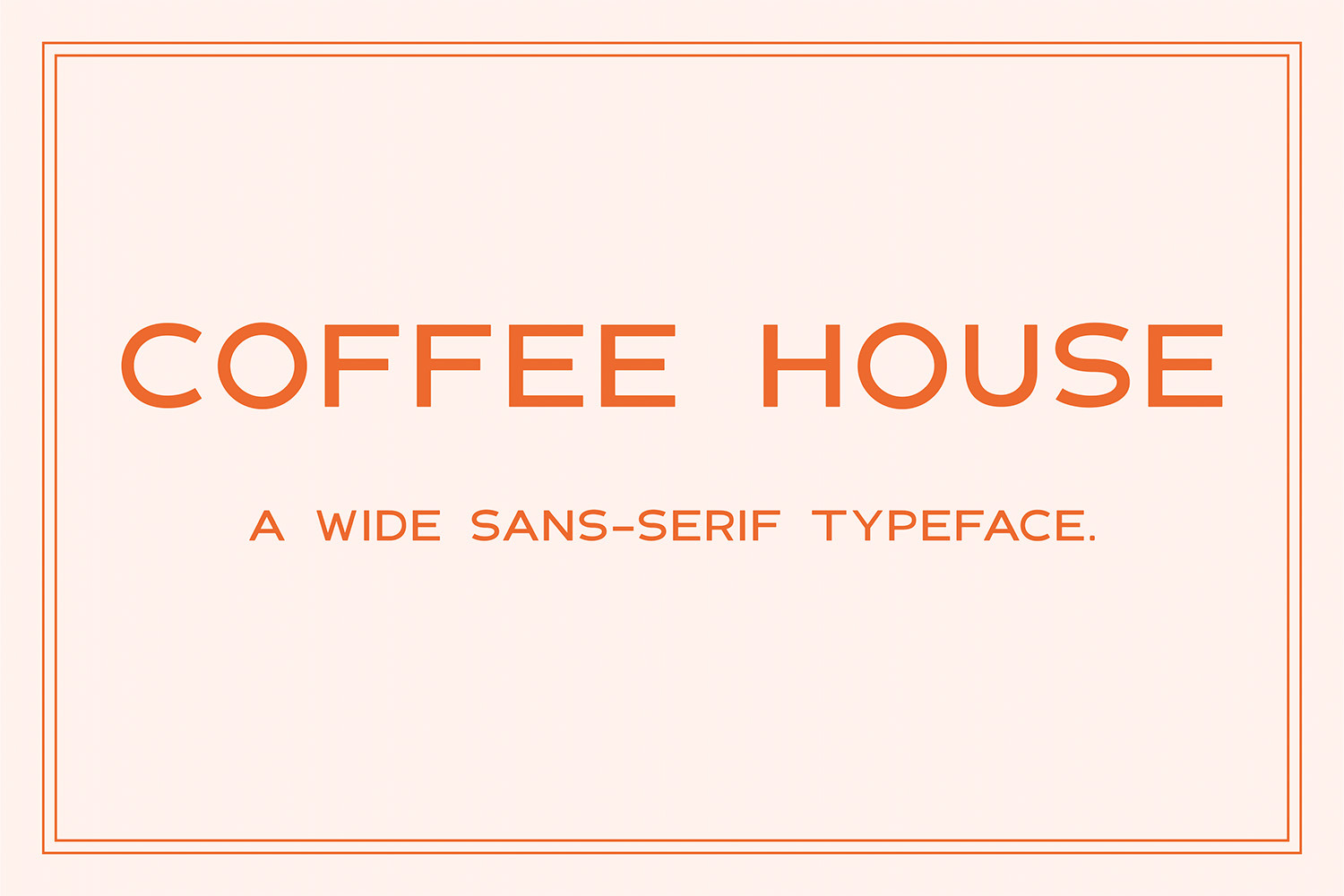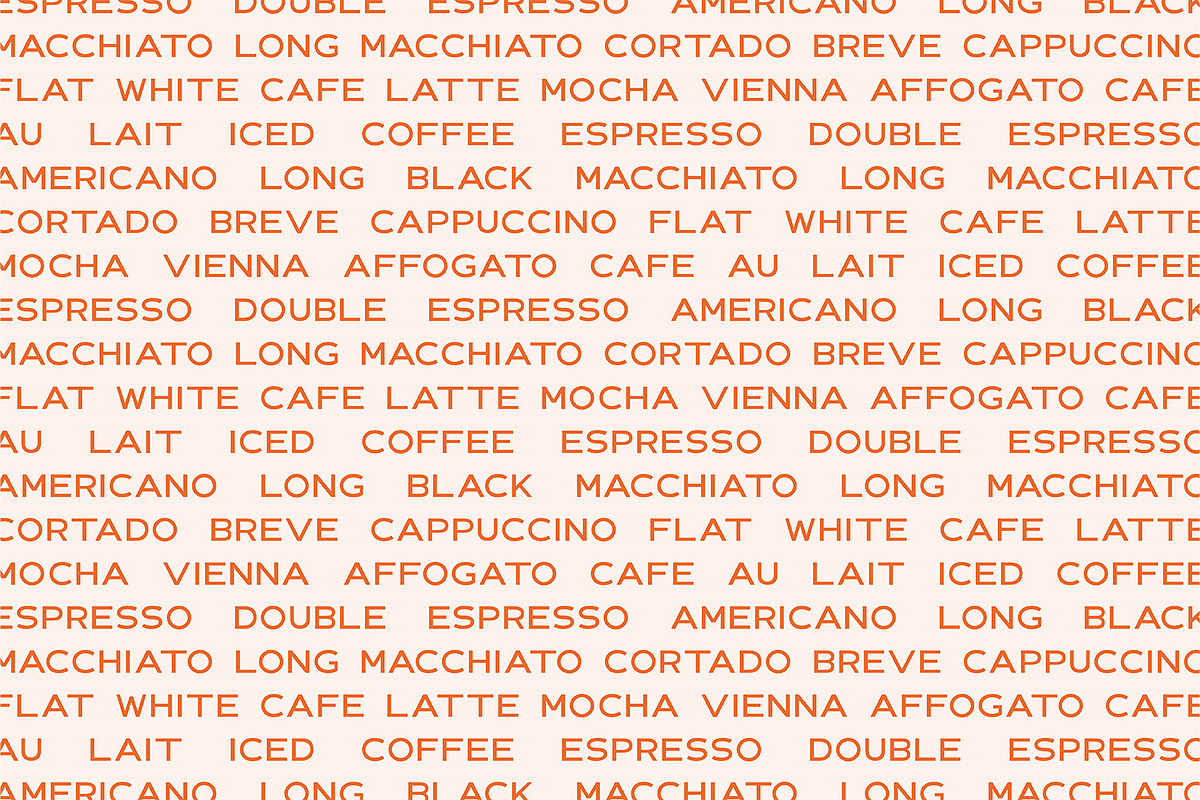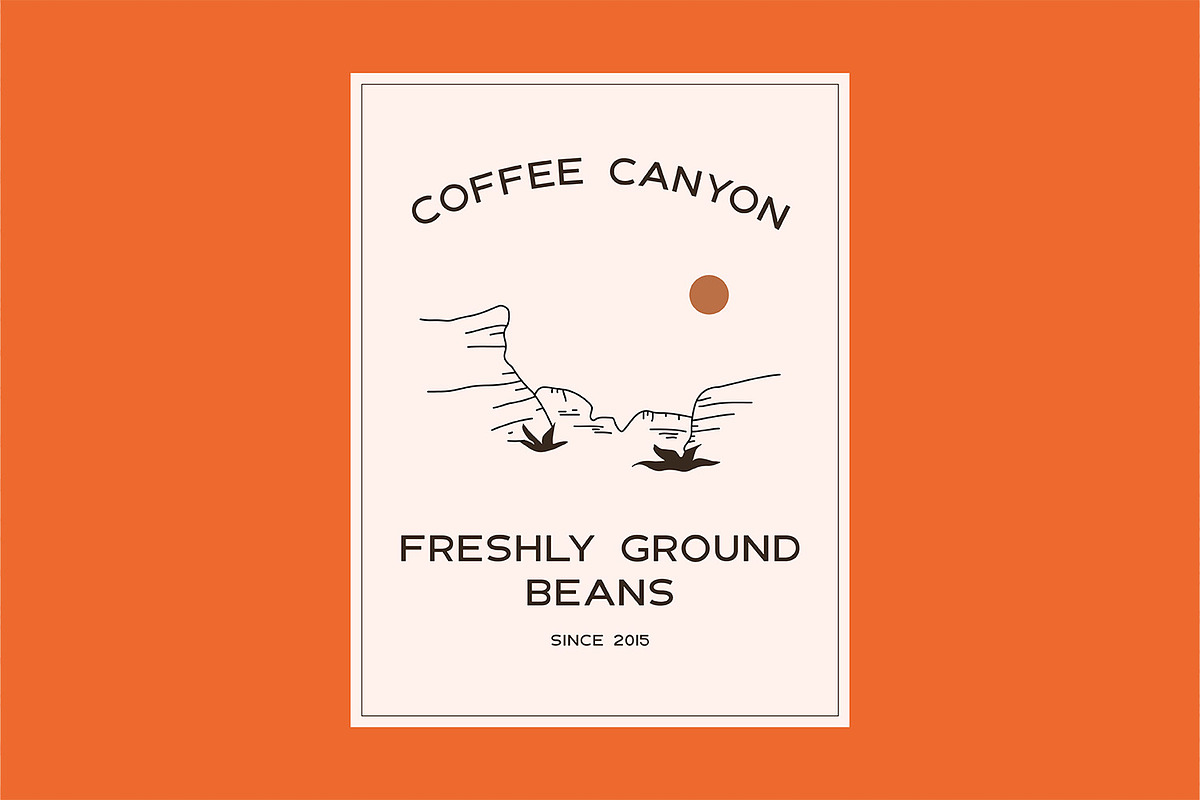
Coffee House | Wide Sans-Serif Font
Coffee house is an all caps sans-serif typeface designed to add a touch of analogue to your digital works.
- capitals A-Z
- numbers 0-9
- accented letters for multiple language support
- punctuation and special characters